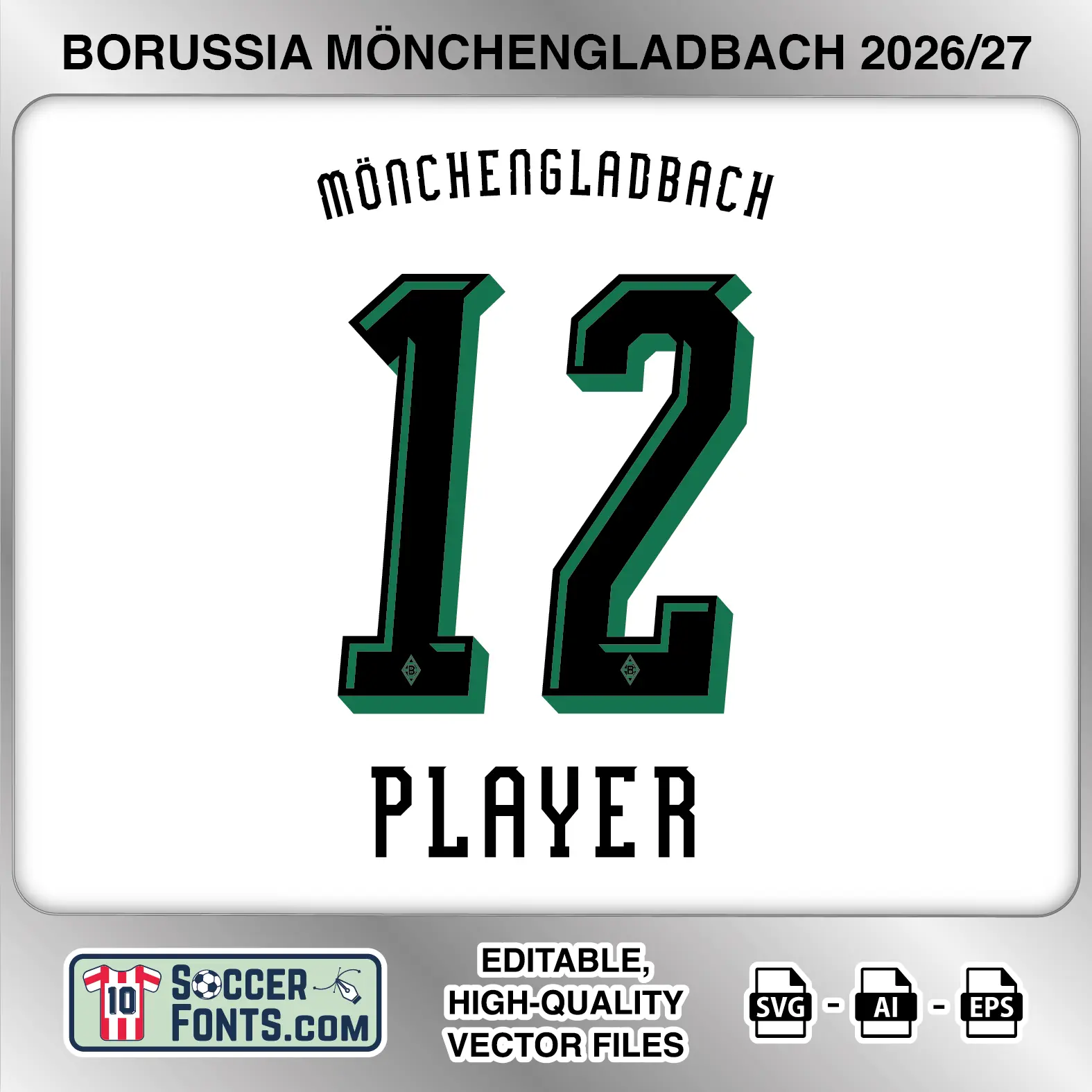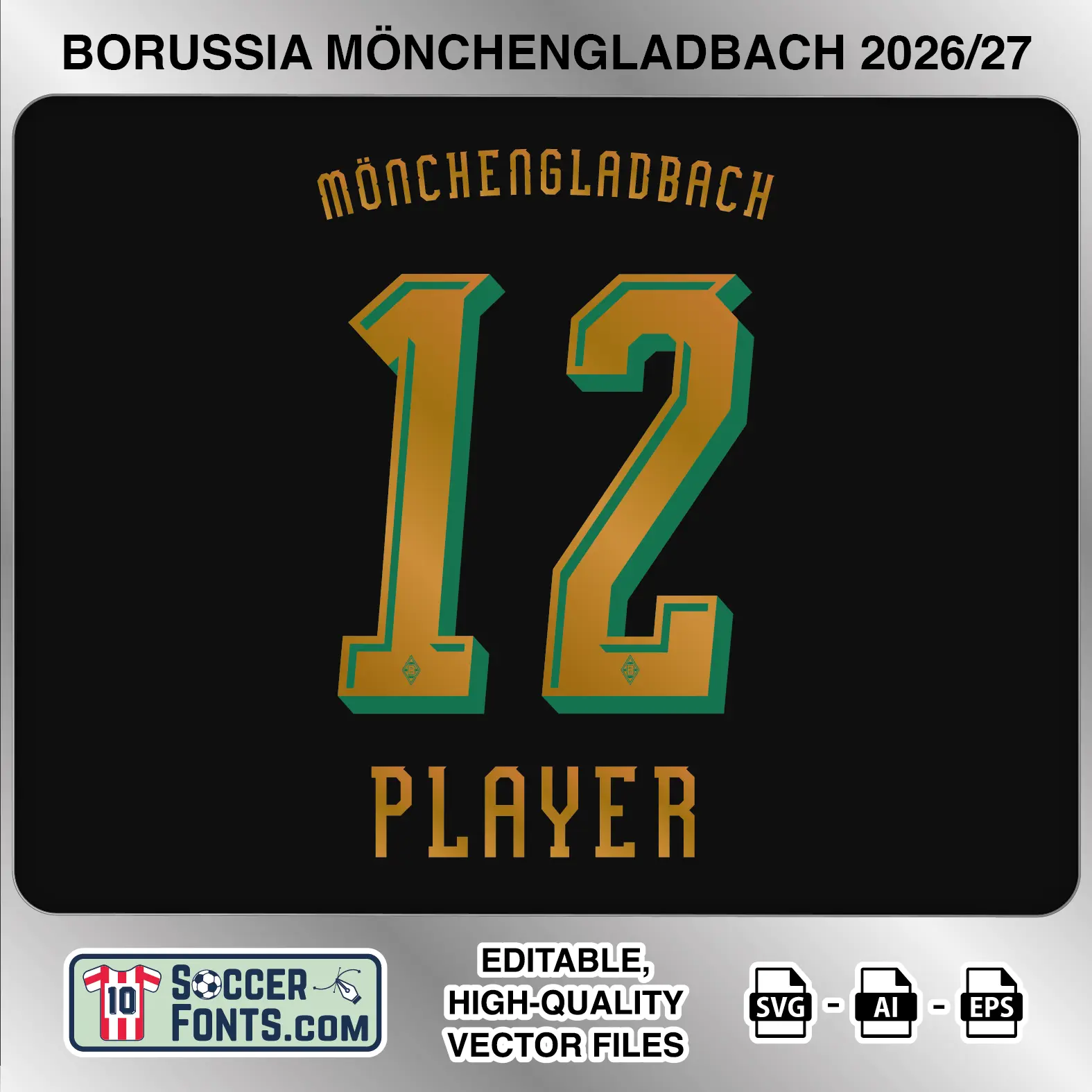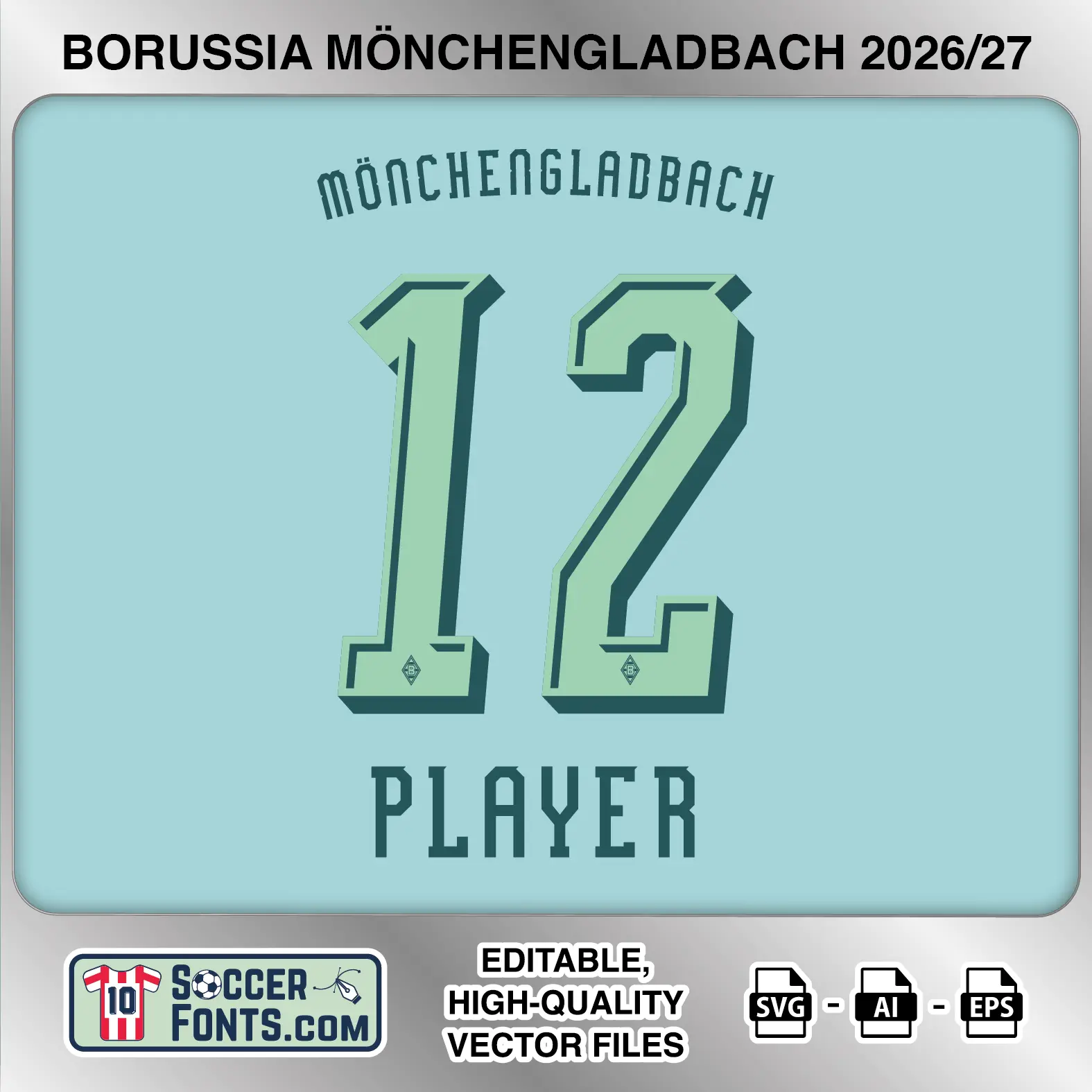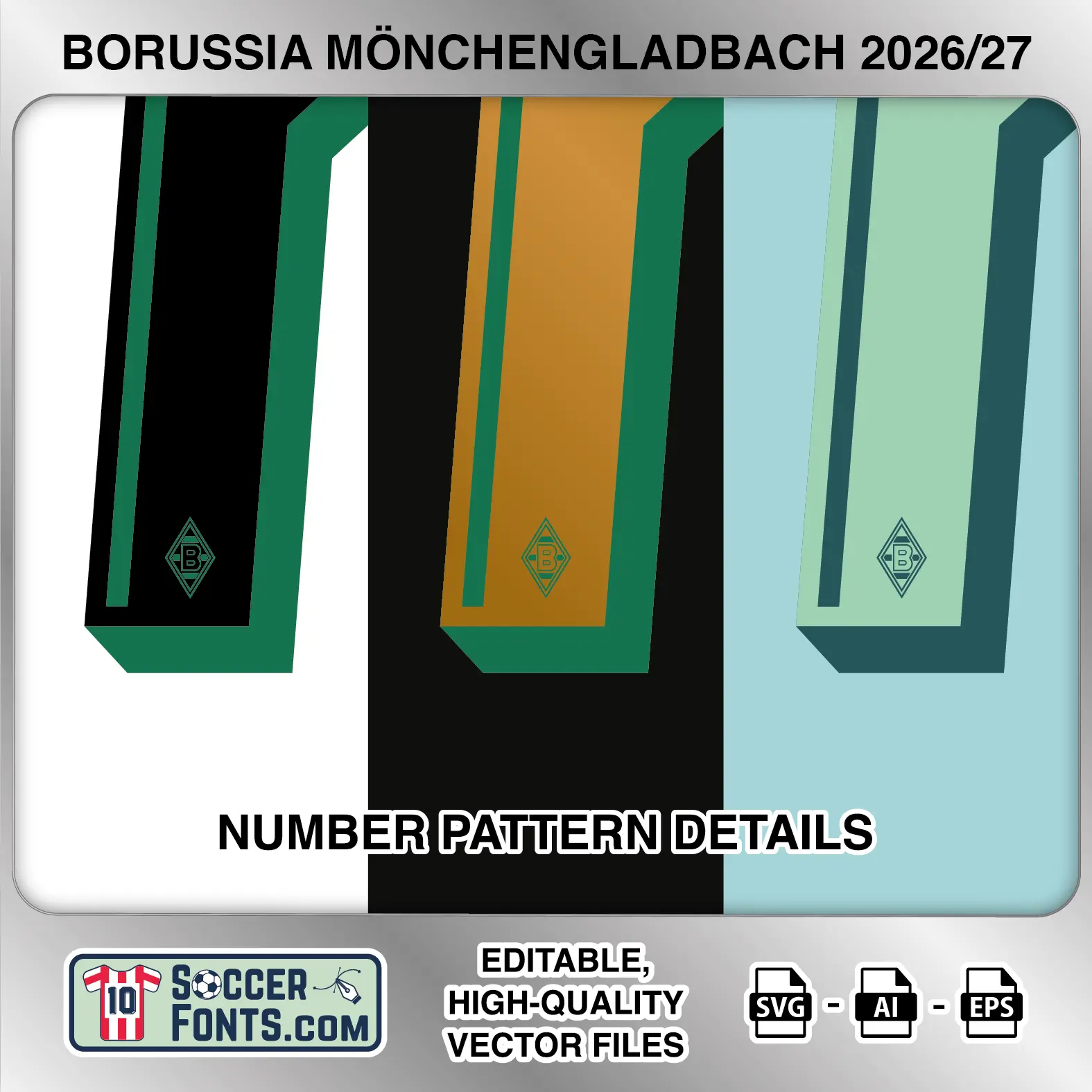
About Borussia Mönchengladbach 2026-27 Font
Download Borussia Mönchengladbach 2026-27 font, an editable soccer jersey lettering design in vector format inspired by the Borussia Mönchengladbach kit style used during the 2026-27 football season. The collection covers the home, away and third shirt treatments and is prepared for football shirt recreations, custom jersey projects, football kit mockups and sports graphic design workflows.
Visual Identity of the Font Design :
The lettering has a narrow, vertically stretched appearance with distinctive angular terminals and irregular cut details. Player names use condensed uppercase characters and can be arranged in a curved arc above the numbers. The numerals are much larger and heavier, combining long straight sections with sharply clipped corners and compact internal spaces.
A major visual feature is the layered construction of the numbers. The main face is accompanied by a contrasting offset layer along the right and lower edges, creating a dimensional effect. The light presentation uses black numerals with green offset detailing, the black treatment combines metallic gold faces with green dimensional edges, while the pale blue version uses light mint numerals with a deep blue-green secondary layer. A small Borussia Mönchengladbach diamond crest is positioned near the base of each number. The supplied character set also includes an extensive selection of accented uppercase letters.
Context of 2026-27 Season for Borussia Mönchengladbach :
The Borussia Mönchengladbach 2026-27 Font belongs to a season of significant early change at Borussia-Park. After finishing 12th in the 2025-26 Bundesliga, Gladbach initially continued with Eugen Polanski, but three consecutive defeats at the beginning of the new league campaign led to a coaching change in September. Alexander Blessin was subsequently appointed on a contract running until 2028.
The Borussia Mönchengladbach 2026-27 Font therefore accompanies a new chapter for the Foals as Blessin begins working with a squad featuring Tim Kleindienst, Florian Neuhaus, Robin Hack and Franck Honorat. Summer arrival Nicolas Kühn also joined on loan from Como, adding another attacking option for the season.
Gladbach’s opening Bundesliga fixtures included high-scoring matches against Elversberg and Mainz as well as a difficult trip to Freiburg. With the Rhine derby against Köln and further matches against Hoffenheim, Stuttgart and Borussia Dortmund ahead, the Borussia Mönchengladbach 2026-27 Font provides a distinctive visual element across the club’s 2026-27 shirt collection.